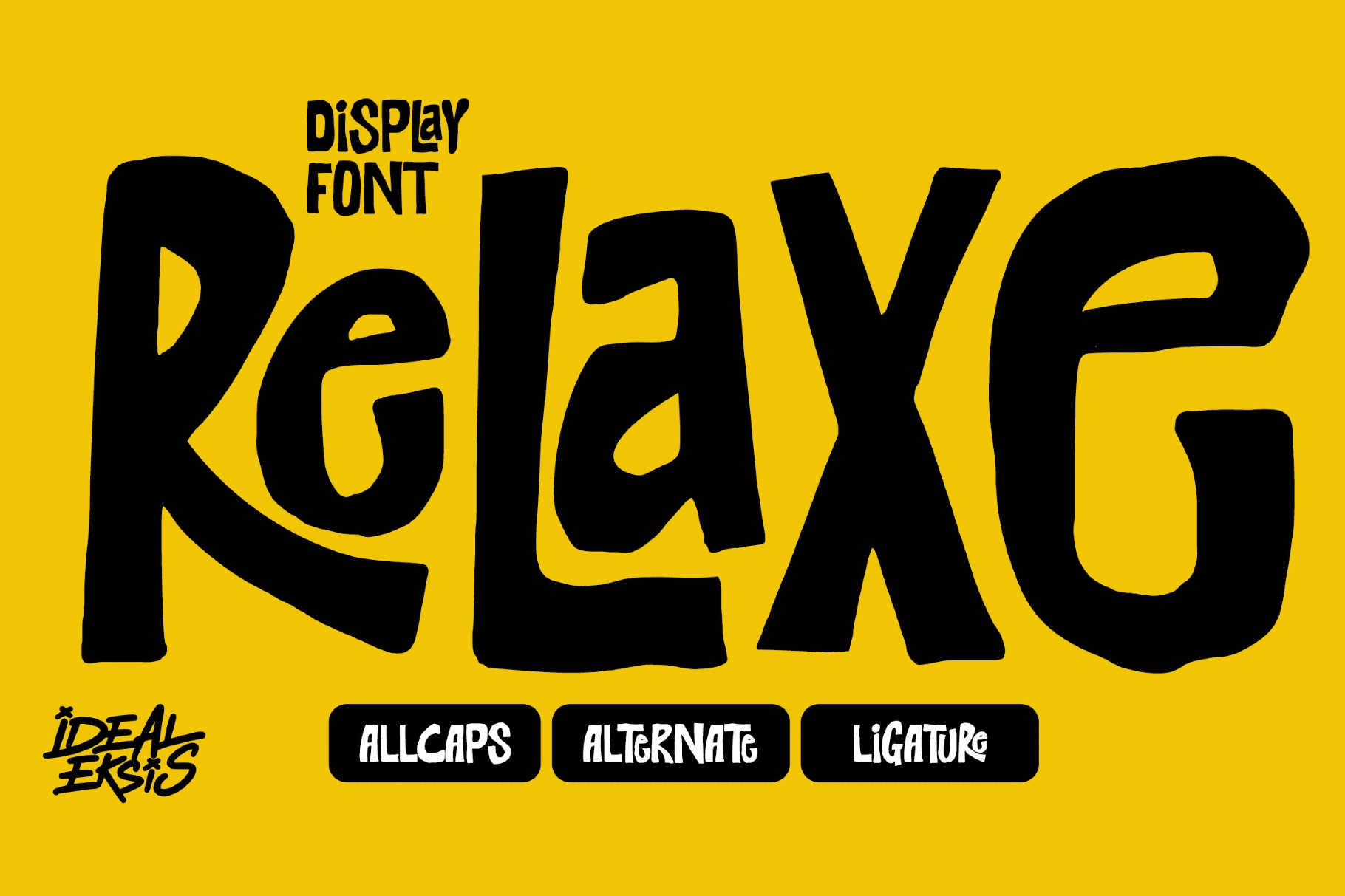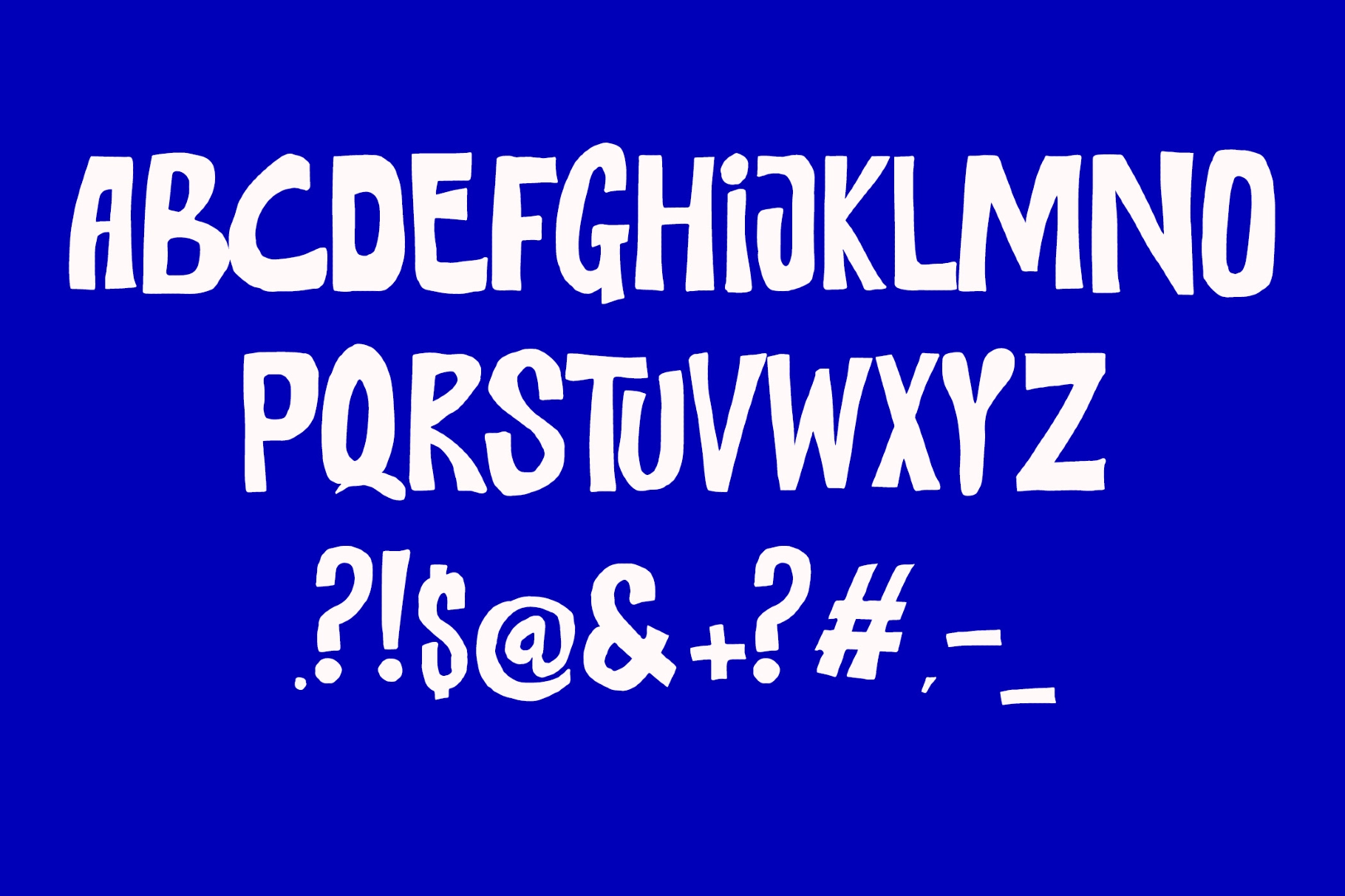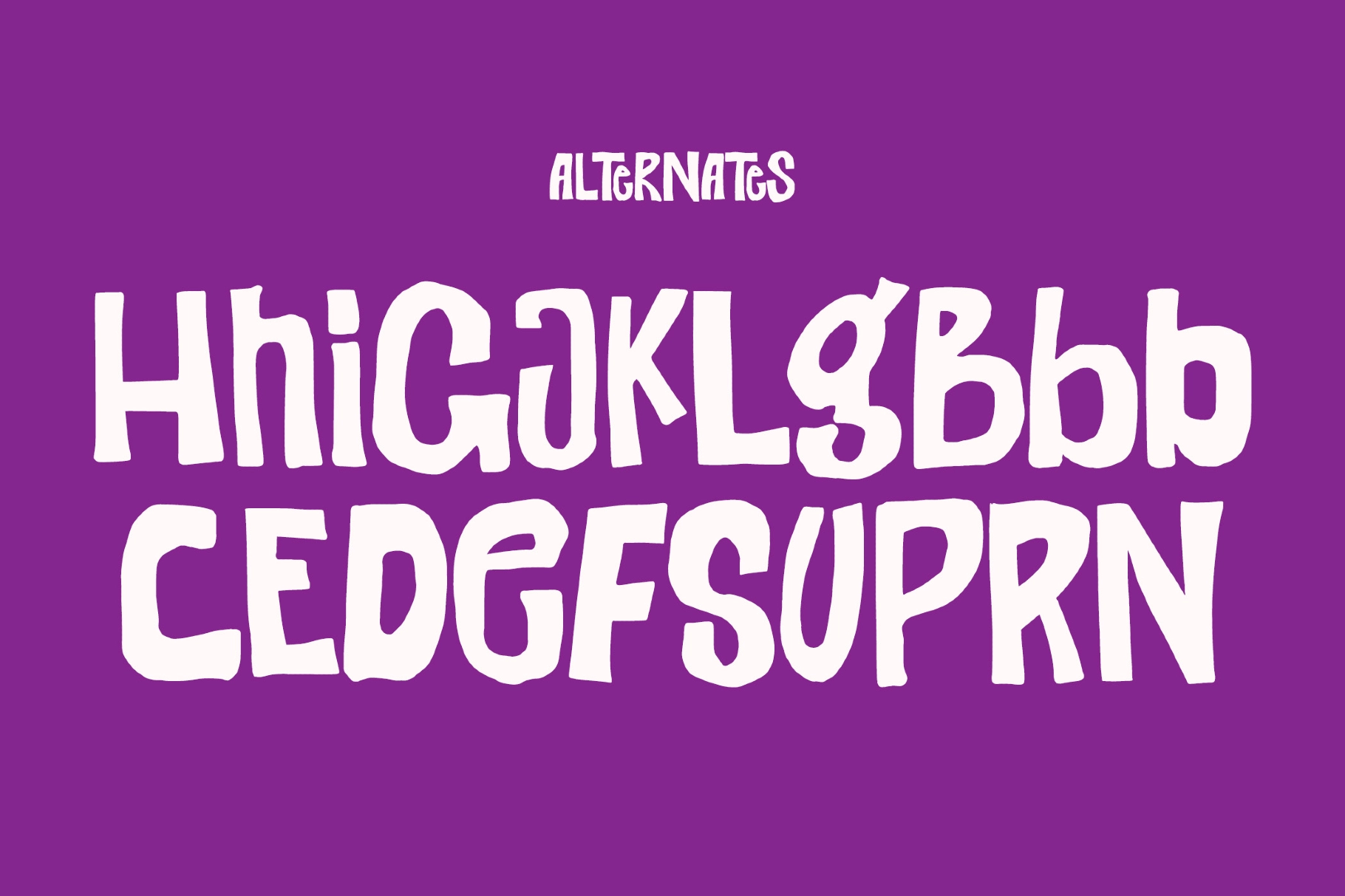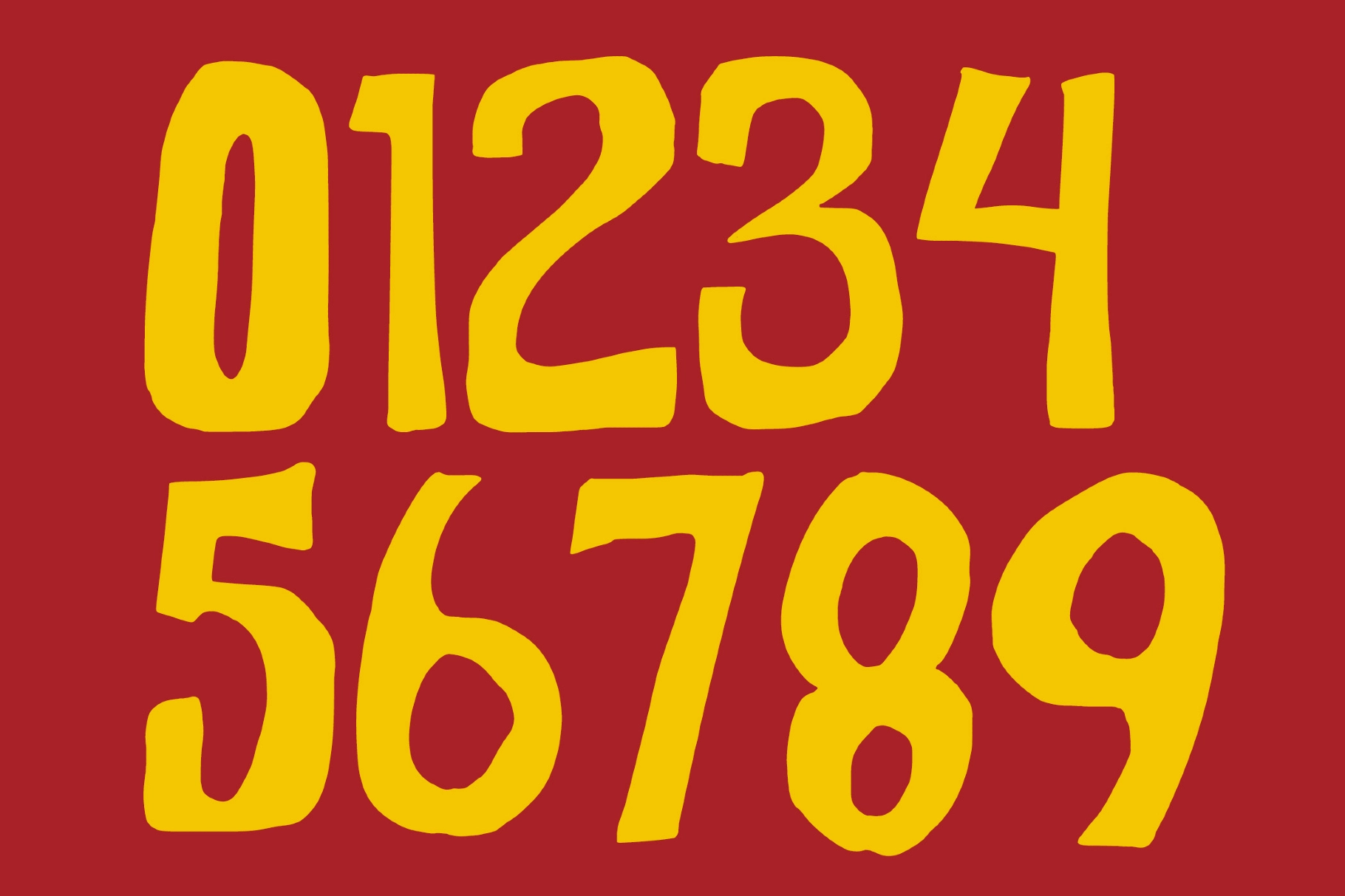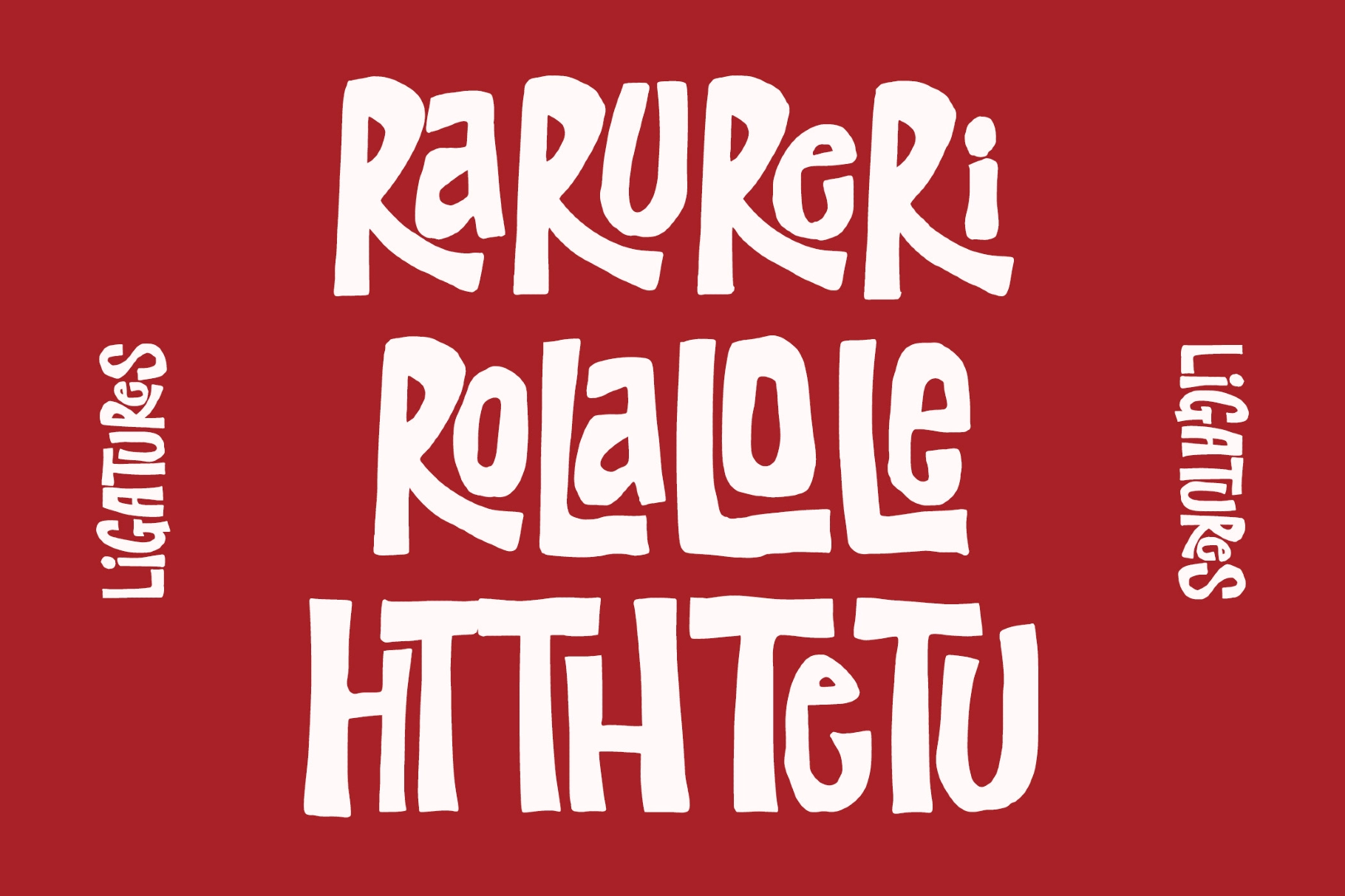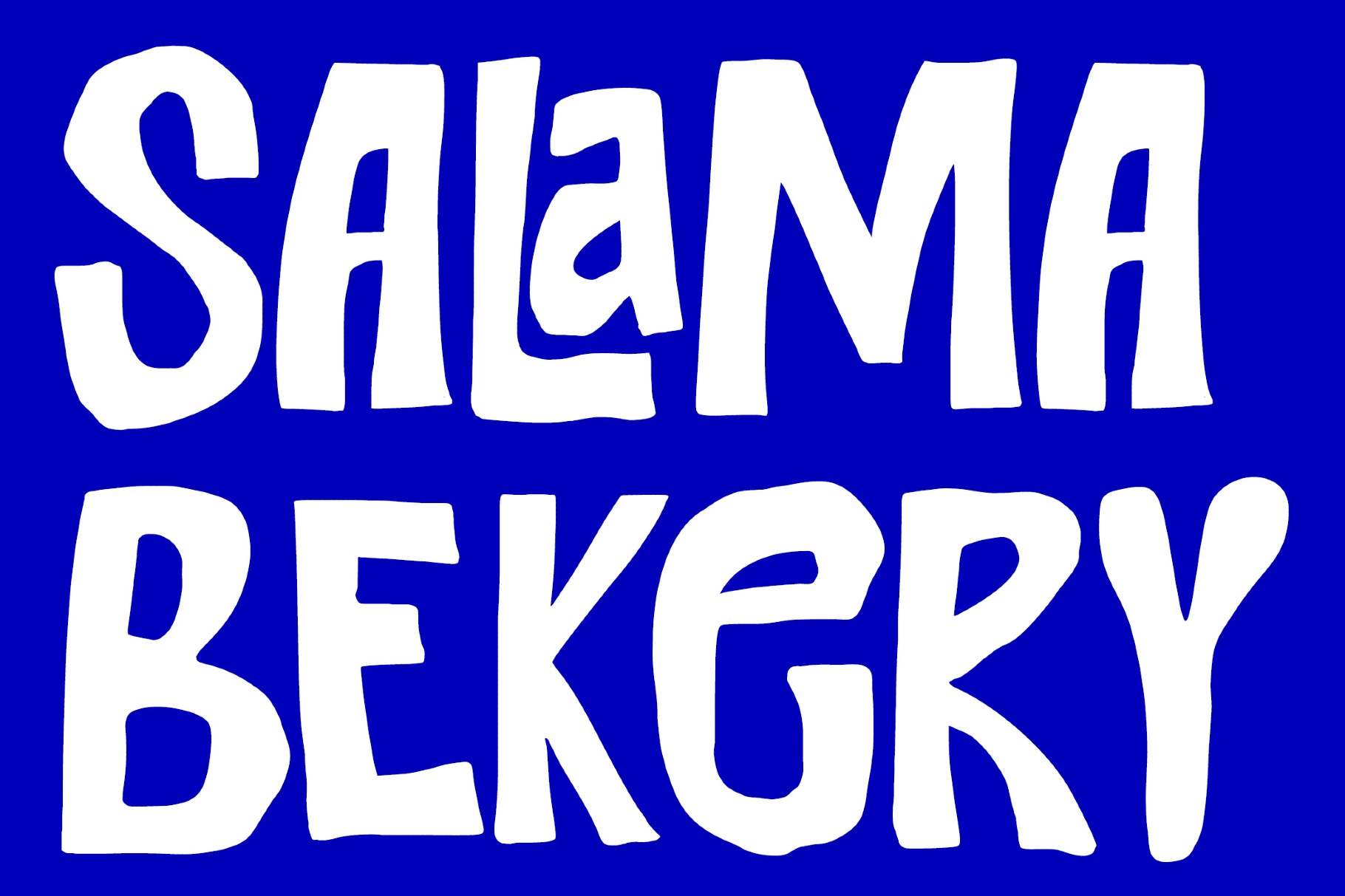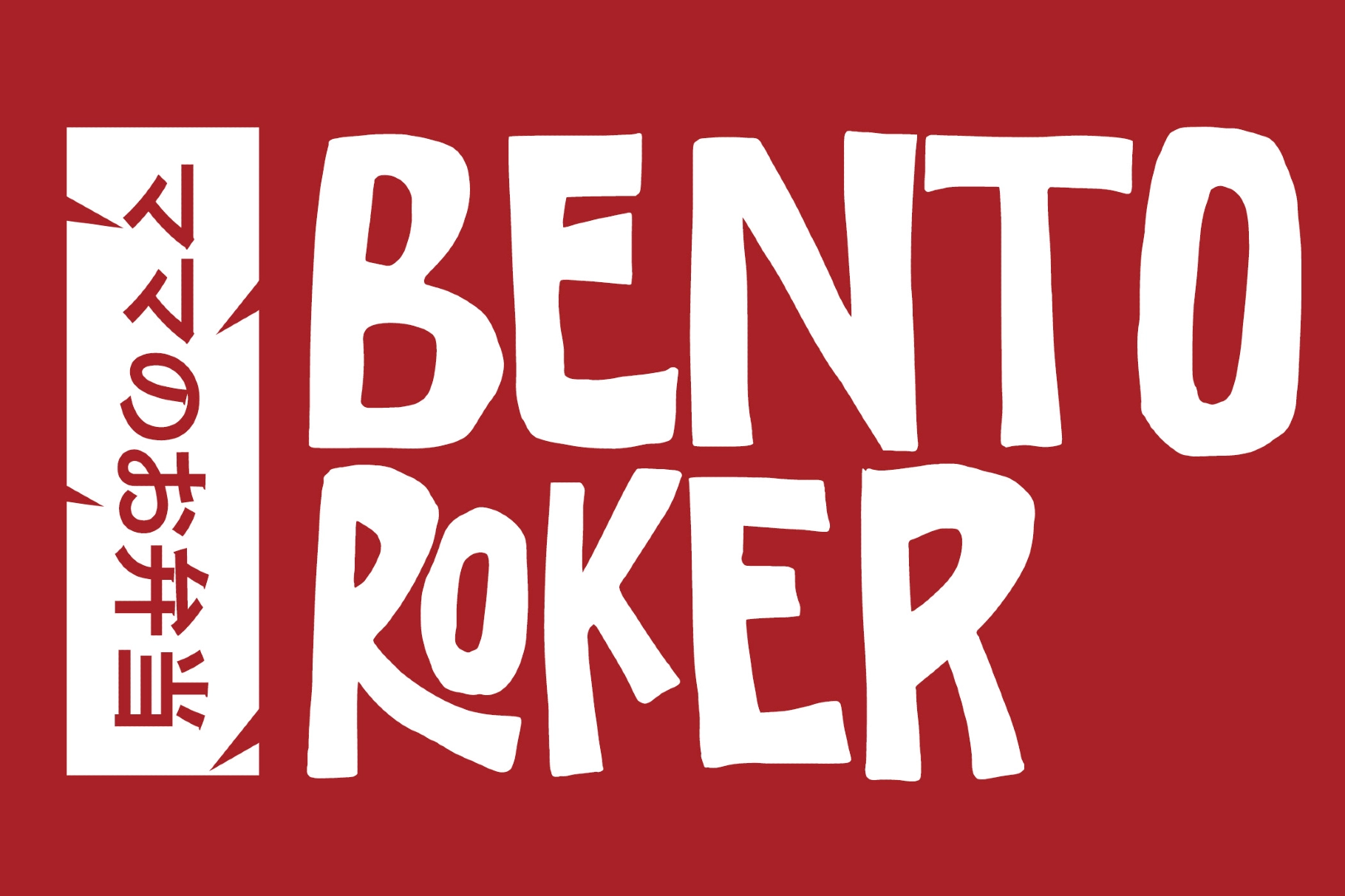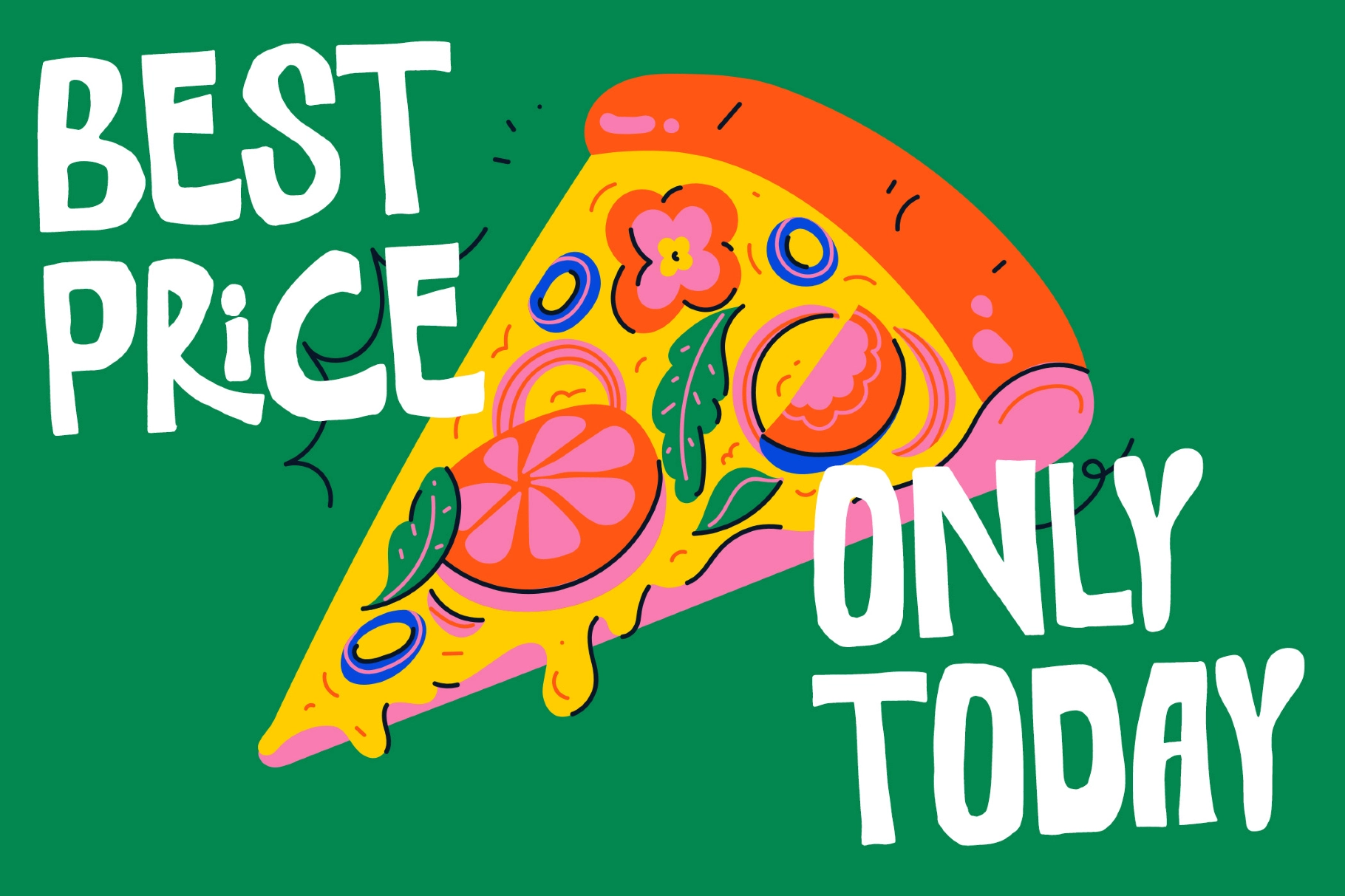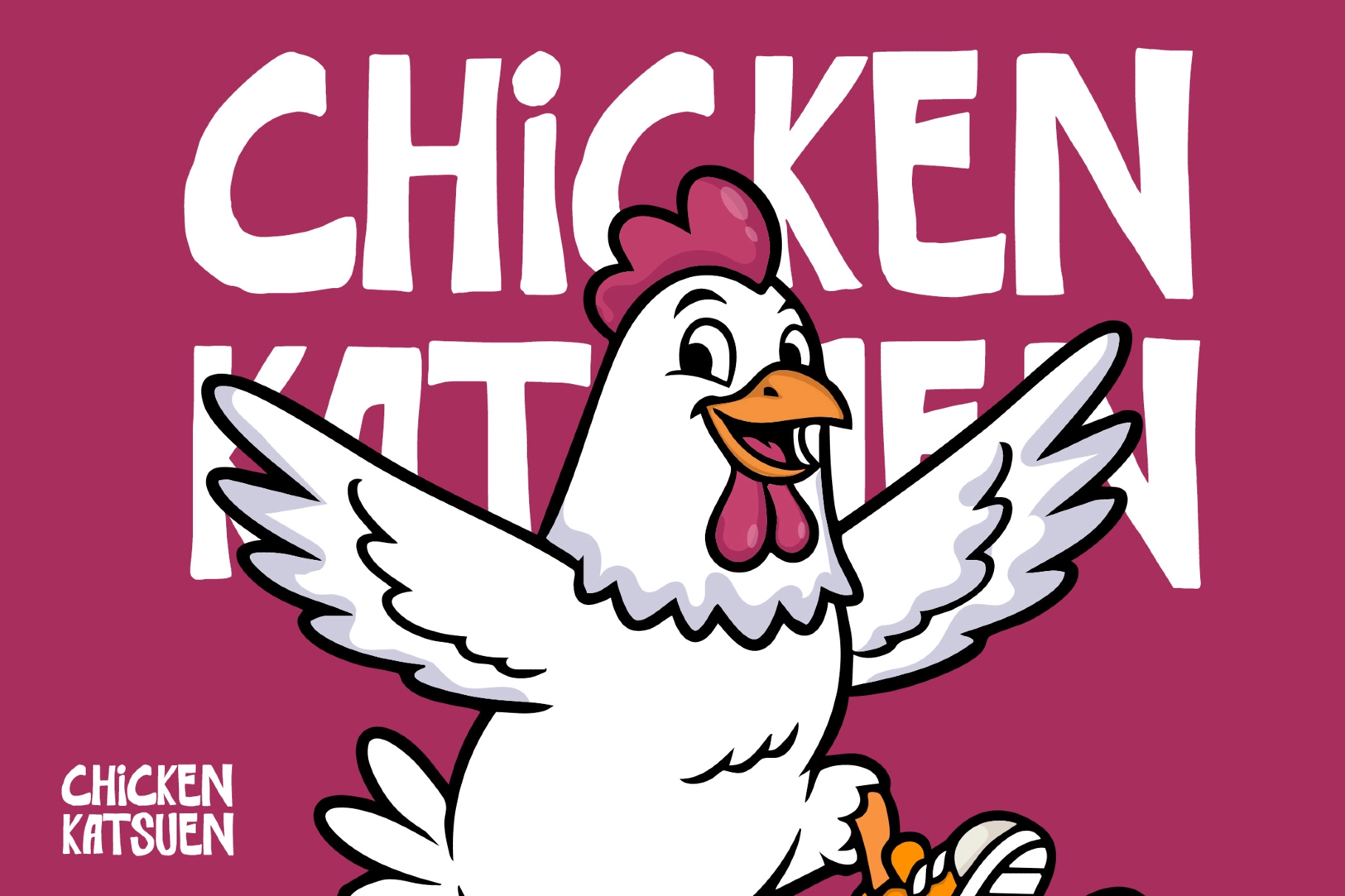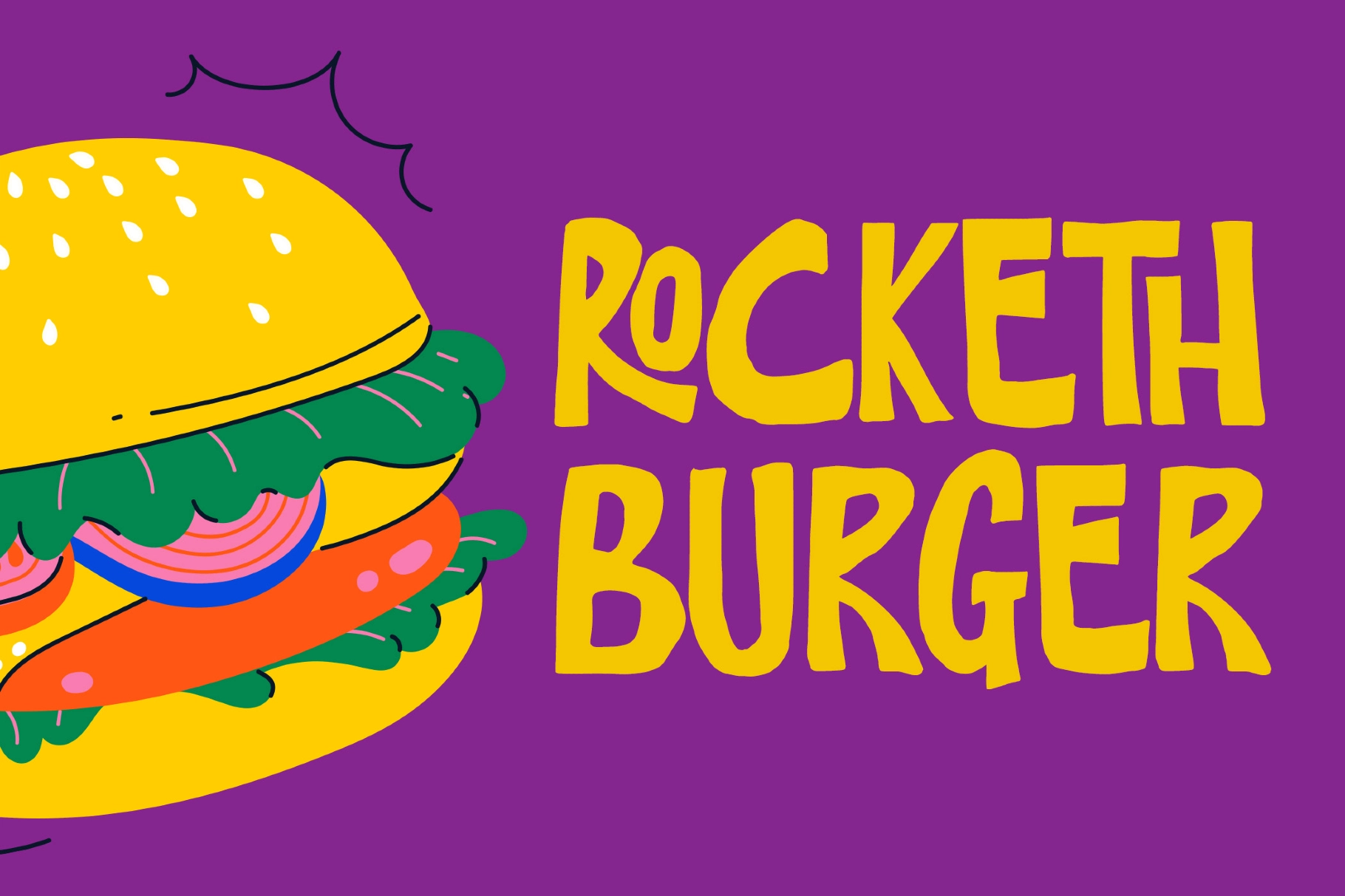
Relaxe - Playful Handdrawn Display Font
Relaxe
Relaxe, Playful Handdrawn Display Font has the rough-hewn charm of hand-painted shop signs and mid-century poster art, with chunky strokes, irregular contours, and a jaunty rhythm that gives the letters a lively, retro-pop presence. It suits headline posters, snack or beverage packaging, youthful logos, social media graphics, album covers, and merch that calls for an easygoing, spirited tone.
- All caps uppercase characters
- Alternate letterforms
- Ligatures
- Punctuation